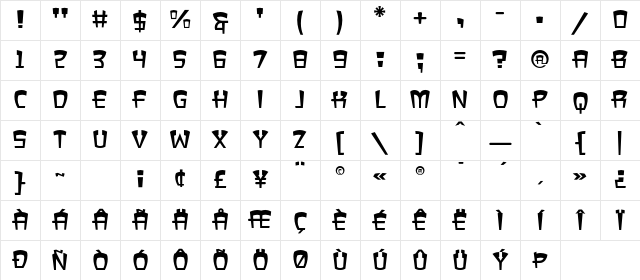
UltraBronzo BronzoidCaps
Style: BronzoidCaps
Design Context for UltraBronzo
UltraBronzo is a composed and adaptable typeface that performs quietly and consistently across a wide range of design contexts.